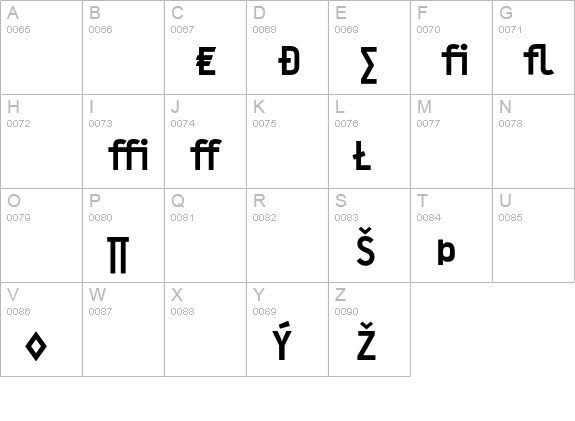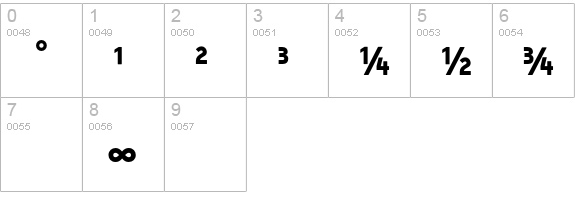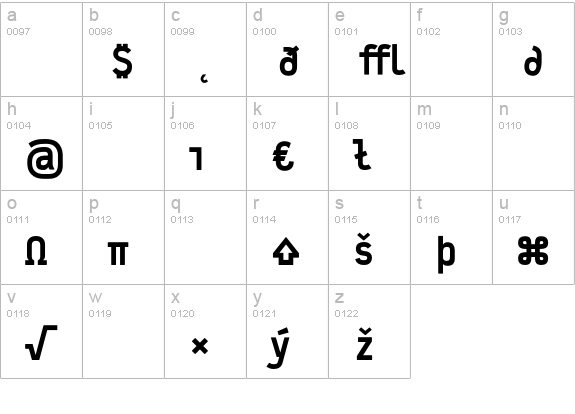
Typestar-BlackExpert Font Details
Typestar-BlackExpert is a stunning and versatile font that exudes elegance and sophistication. This font is perfect for creating eye-catching designs, whether it's for advertising, branding, or editorial purposes. Its bold and sleek letterforms make a bold statement, instantly capturing attention and leaving a lasting impression. With its clean lines and modern aesthetic, Typestar-BlackExpert is the perfect choice for any project that requires a touch of professionalism and refinement. Its carefully crafted characters are easily legible, ensuring maximum readability across different platforms and mediums. But what sets Typestar-BlackExpert apart is not just its impeccable design, but also its availability. This font is freely available to download at FontsMarket.com, making it accessible to designers and creatives all around the world. It's a font that doesn't break the bank, allowing you to create stunning designs without the need for a hefty budget. Whether you're designing a logo, a poster, or a website, Typestar-BlackExpert will elevate your project to new heights. Its versatility allows it to adapt to any design style or concept, giving you the freedom to bring your vision to life. From sleek and modern to bold and daring, this font can do it all. So why settle for ordinary when you can have extraordinary? Download Typestar-BlackExpert for free at FontsMarket.com and unlock a world of design possibilities. Take your creations to the next level and stand out from the crowd with this remarkable font.